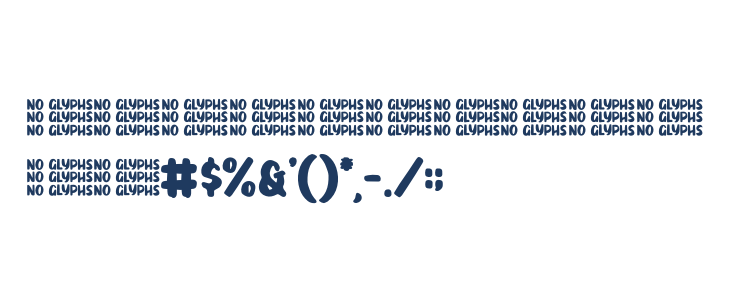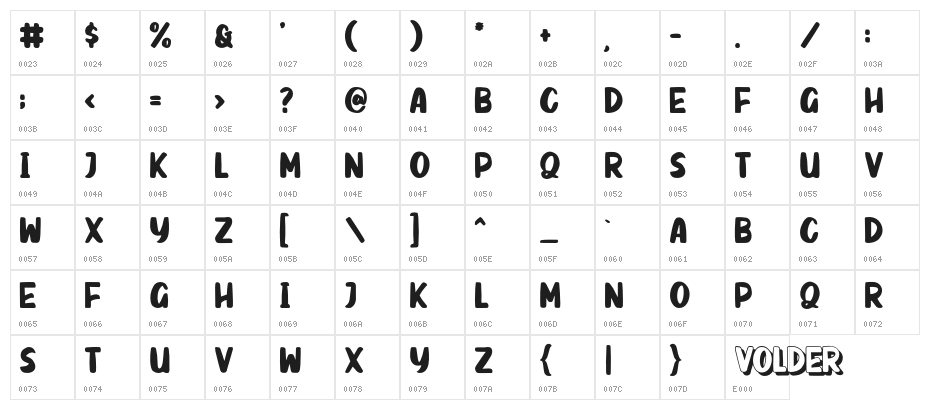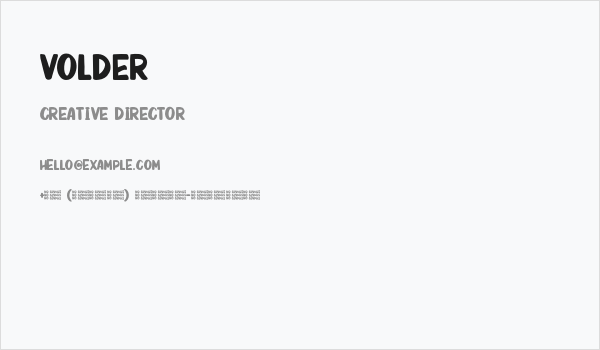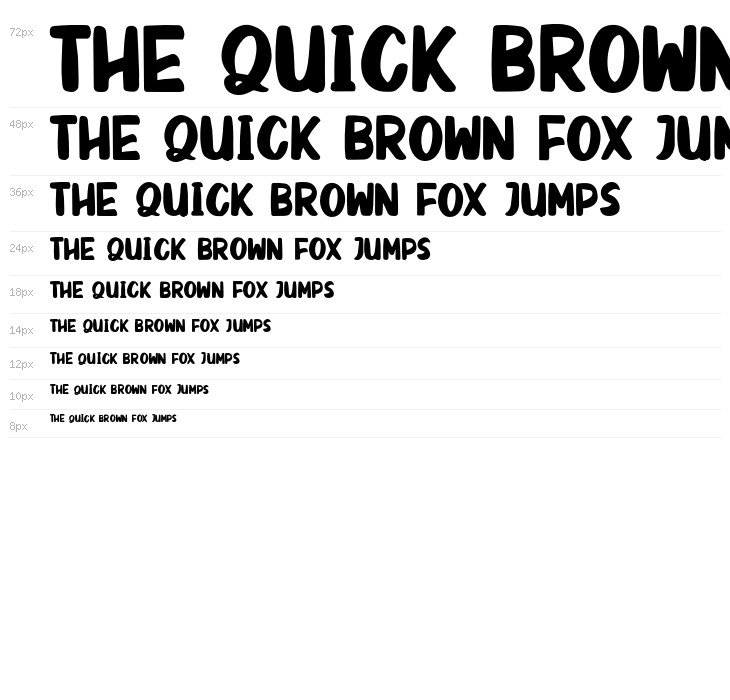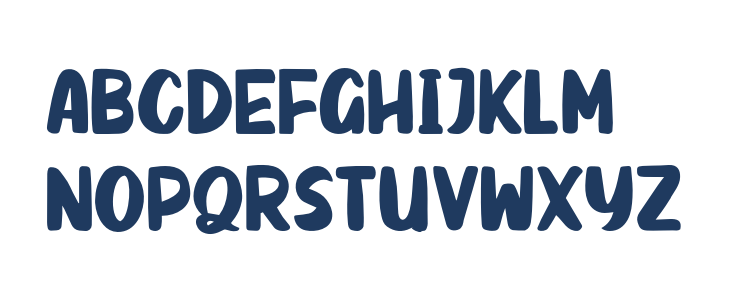
VOLDER Font
VOLDER Description
This font features bold, rounded characters with a playful and informal style. The uppercase letters are prominent and well-defined, while the lowercase letters maintain a consistent flow with a slightly exaggerated curvature. The numbers are bold and easily legible, matching the overall style of the letters. Special characters are included, maintaining the same bold and rounded aesthetic. The font's design is cohesive, with a uniform thickness across all characters, giving it a strong visual presence.
| Overall Style | Playful, Informal |
| Proposed Projects | Ideal for children's books, playful branding, casual invitations, and creative posters. |